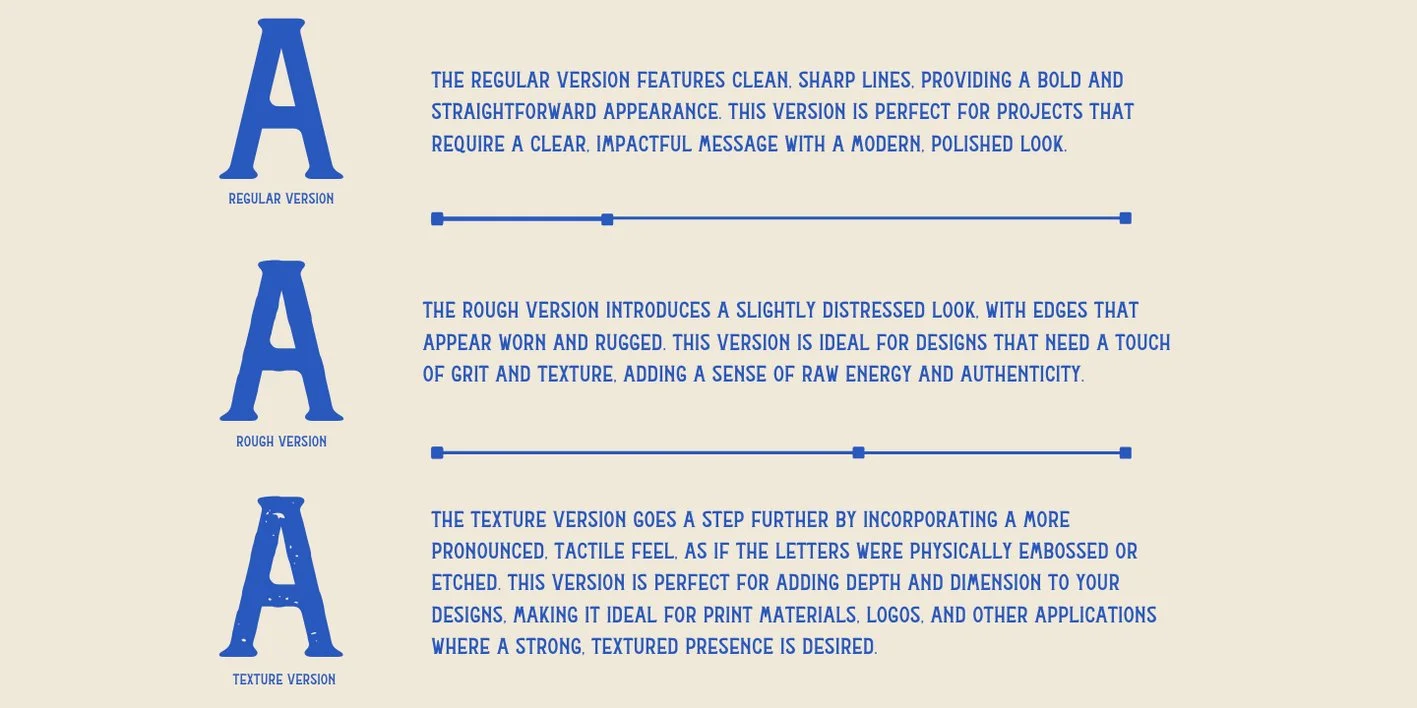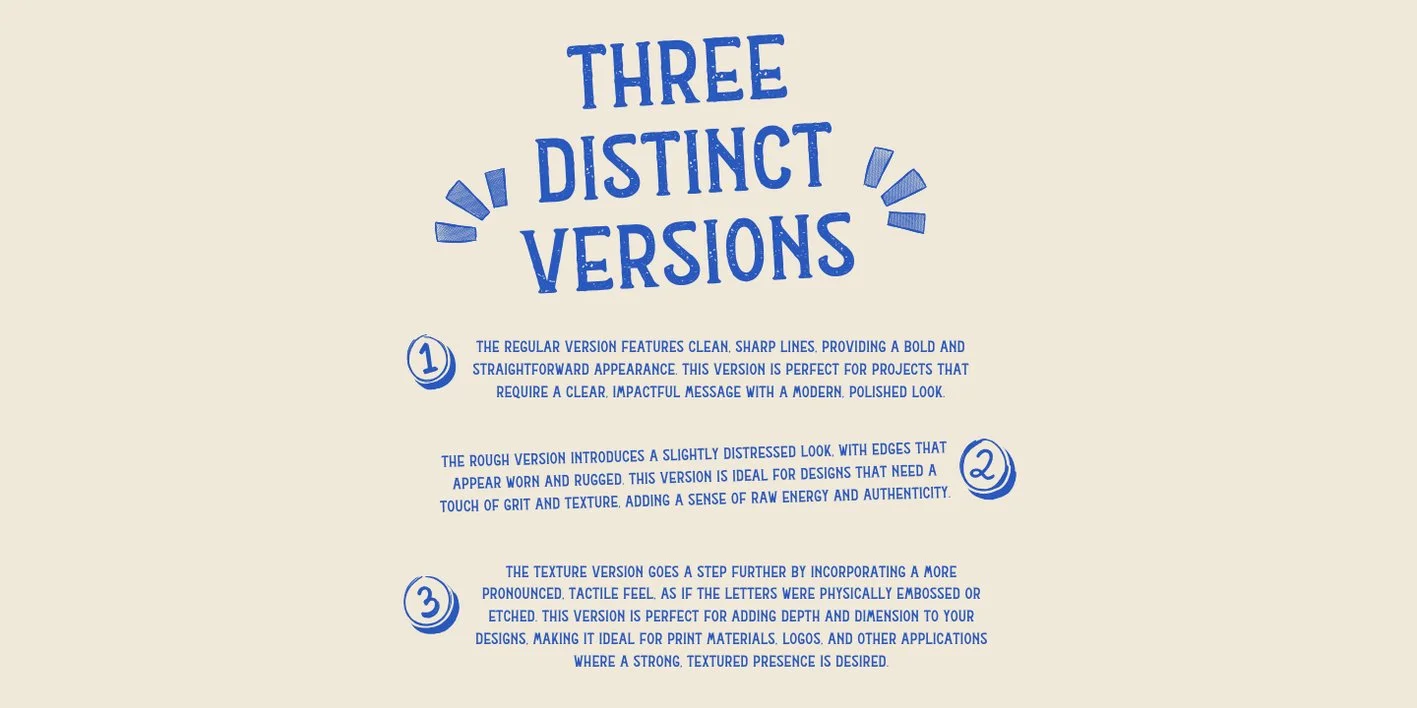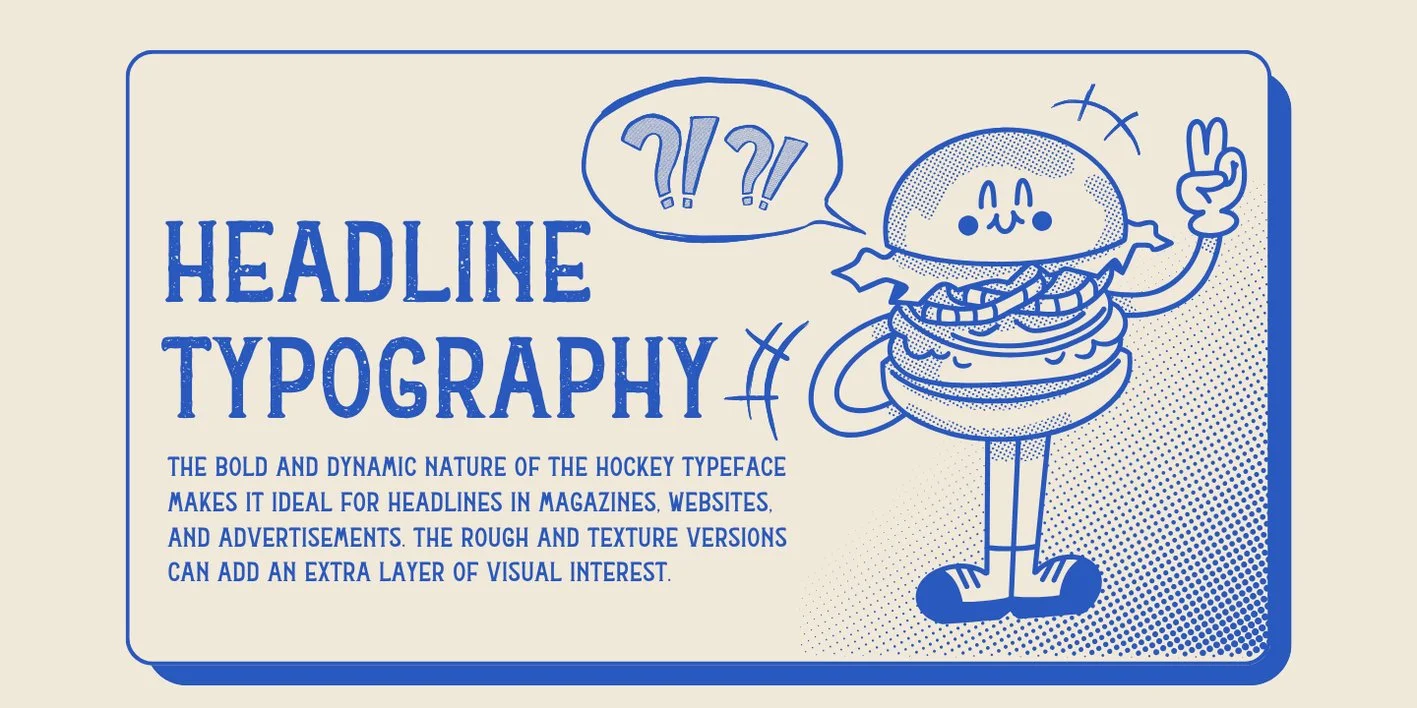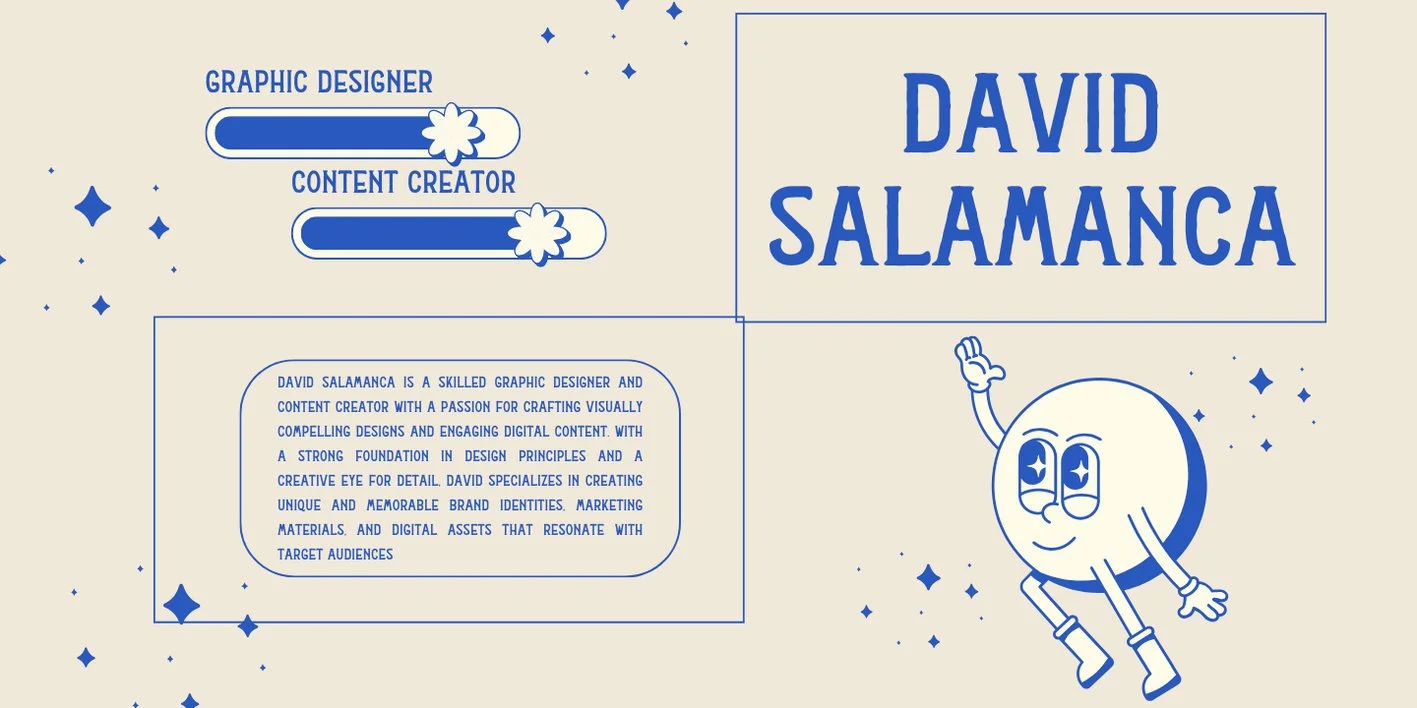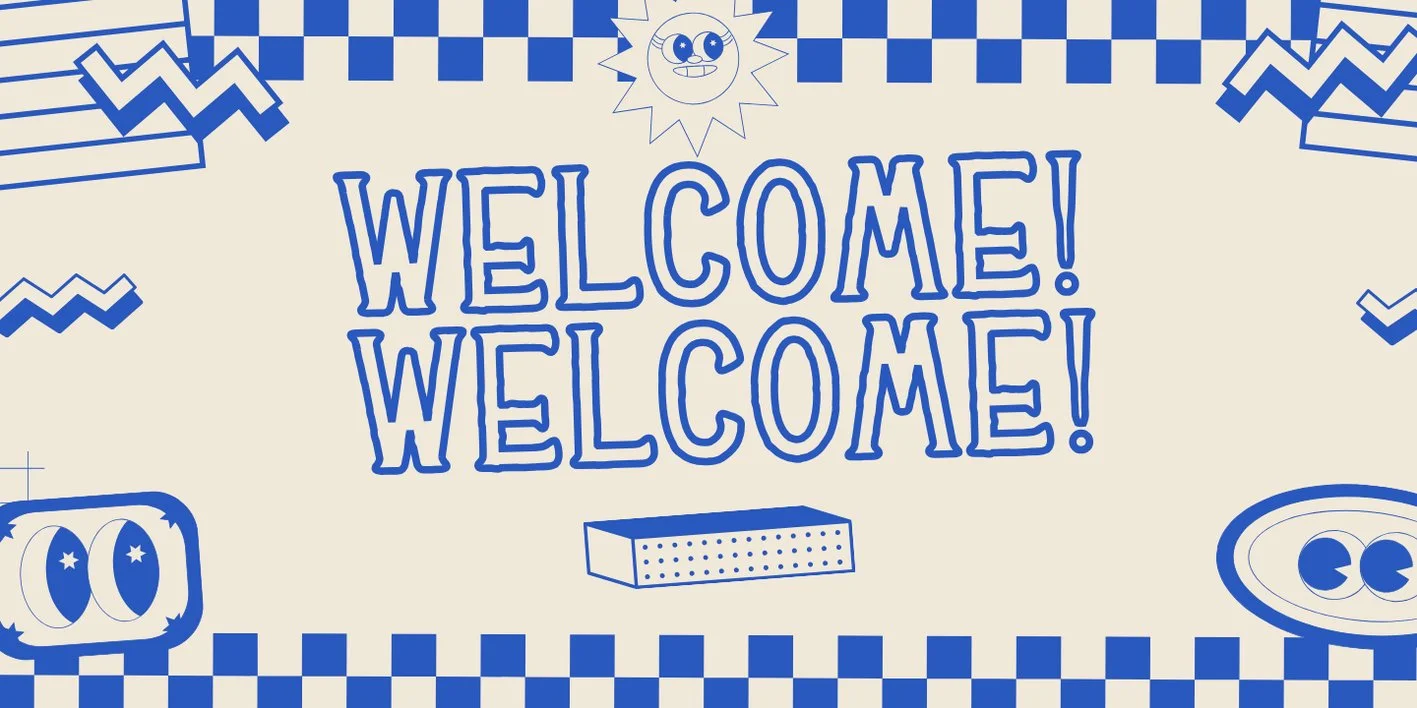
Hockey Font
A good typeface communicates tone before a single word is read. Hockey achieves this through controlled contrast that rewards close inspection. The typeface brings a versatile sensibility to a broad range of creative disciplines, with visual harmony and precise spacing that holds up whether the work is print-first or screen-first.
In practice, Hockey proves particularly effective for brand identity systems, environmental graphics, logo design, web design, poster creation. Designers reaching for it find that the type decisions feel resolved rather than laboured — a useful quality when client timelines are tight.
The range of applications extends to packaging design, advertising campaigns, annual reports, social media graphics. That breadth is deliberate: the proportions and spacing were stress-tested across a wide range of mock briefs before the typeface was finalised.
Hockey sits comfortably alongside both classic and contemporary typefaces in multi-font hierarchies. It takes direction rather than competing for attention — a quality that experienced designers know is harder to find than it appears.
Brand strategists building visual languages find Hockey a reliable choice for projects that demand both personality and restraint. The design avoids the self-conscious quirkiness that dates quickly, settling instead for considered distinctiveness that holds up over time.